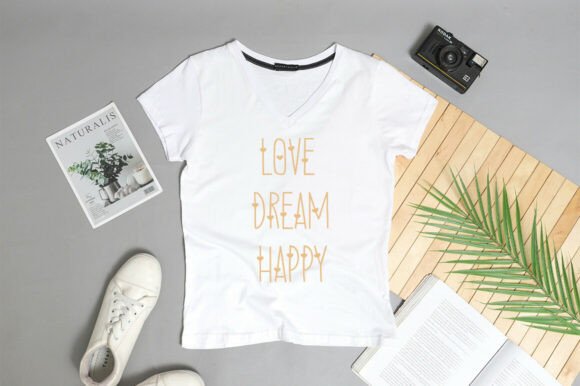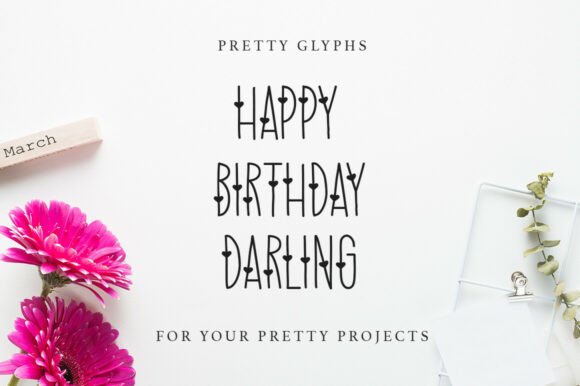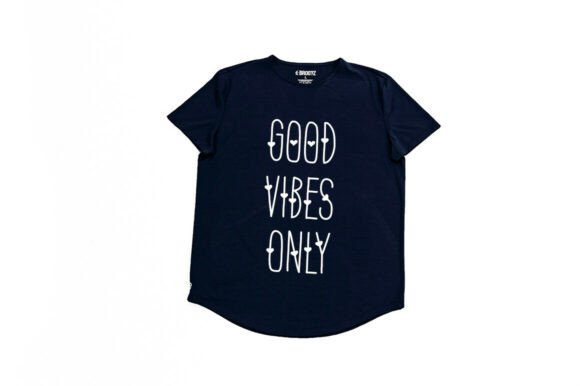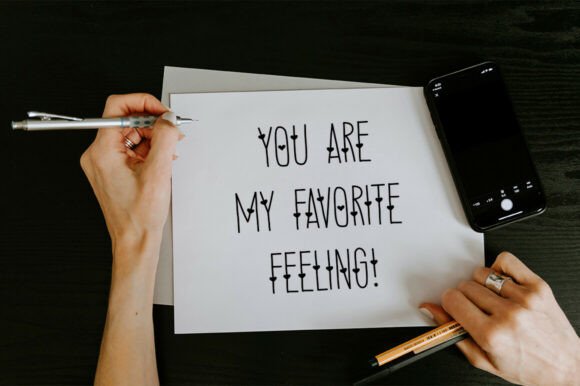
Introducing Espresso Heart Font: The Perfect Blend of Whimsy and Elegance
Are you a designer or crafter looking for a unique and captivating font to elevate your creative projects? Look no further than Espresso Heart Font, a delicate and whimsical monoline handwriting font that is sure to charm. Characterized by its slender, tall proportions, clean uniform strokes, and perfectly vertical stems, this typeface exudes a light and airy appearance that is perfect for a variety of applications.
The Defining Feature: Heart Motifs
What sets Espresso Heart Font apart from other fonts is its most defining feature: the small heart motifs integrated directly into the stems of the characters. These adorable heart designs replace traditional titles or add decorative flair to vertical bars, giving the font a playful and romantic touch. This unique feature makes Espresso Heart Font an ideal choice for projects that require a gentle, human-centric aesthetic, such as boutique café menus, artisanal product packaging, Valentine’s Day greeting cards, and personalized social media content.
Espresso Heart Font is a versatile typeface that can be used in a variety of creative projects. Here are some ideas to get you started:
- Boutique CafĂ© Menus: Add a touch of elegance and whimsy to your cafĂ© menu with Espresso Heart Font. The font’s slender proportions and heart motifs will make your menu stand out and leave a lasting impression on your customers.
- Artisanal Product Packaging: Give your product packaging a personal touch with Espresso Heart Font. The font’s clean and uniform strokes will add a level of sophistication, while the heart motifs will convey a sense of love and care.
- Valentine’s Day Greeting Cards: Make your Valentine’s Day greeting cards extra special with Espresso Heart Font. The font’s playful and romantic touch will make your cards stand out and show your loved ones how much you care.
- Personalized Social Media Content: Add a touch of personality to your social media content with Espresso Heart Font. The font’s gentle and human-centric aesthetic will help you connect with your audience and make your content more engaging.
Design and Crafting Inspiration
Espresso Heart Font is not just a font, it’s a design element that can inspire your creativity and elevate your projects. Here are some design and crafting ideas to get you started:
- Handmade Cards: Use Espresso Heart Font to create beautiful handmade cards for special occasions. The font’s whimsical touch will add a personal and emotional element to your cards.
- DIY Crafts: Add a touch of elegance to your DIY crafts with Espresso Heart Font. The font’s clean and uniform strokes will make your crafts stand out and give them a professional finish.
- Stationery Design: Create beautiful stationery sets with Espresso Heart Font. The font’s slender proportions and heart motifs will make your stationery sets perfect for personal and professional use.
Why Choose Espresso Heart Font?
So, why choose Espresso Heart Font for your creative projects? Here are some reasons:
- Unique and Whimsical: Espresso Heart Font is a one-of-a-kind font that will add a touch of whimsy and elegance to your projects.
- Versatile: The font is versatile and can be used in a variety of creative projects, from boutique café menus to personalized social media content.
- Easy to Read: Espresso Heart Font is easy to read, even in small sizes, making it perfect for a variety of applications.
- High-Quality: The font is of high-quality, with clean and uniform strokes that will give your projects a professional finish.
In conclusion, Espresso Heart Font is a beautiful and unique font that is perfect for designers and crafters looking to add a touch of whimsy and elegance to their creative projects. With its slender proportions, clean uniform strokes, and heart motifs, this font is sure to charm. Whether you’re creating boutique cafĂ© menus, artisanal product packaging, Valentine’s Day greeting cards, or personalized social media content, Espresso Heart Font is the perfect choice. So, why wait? Download Espresso Heart Font today and elevate your creative projects to the next level!